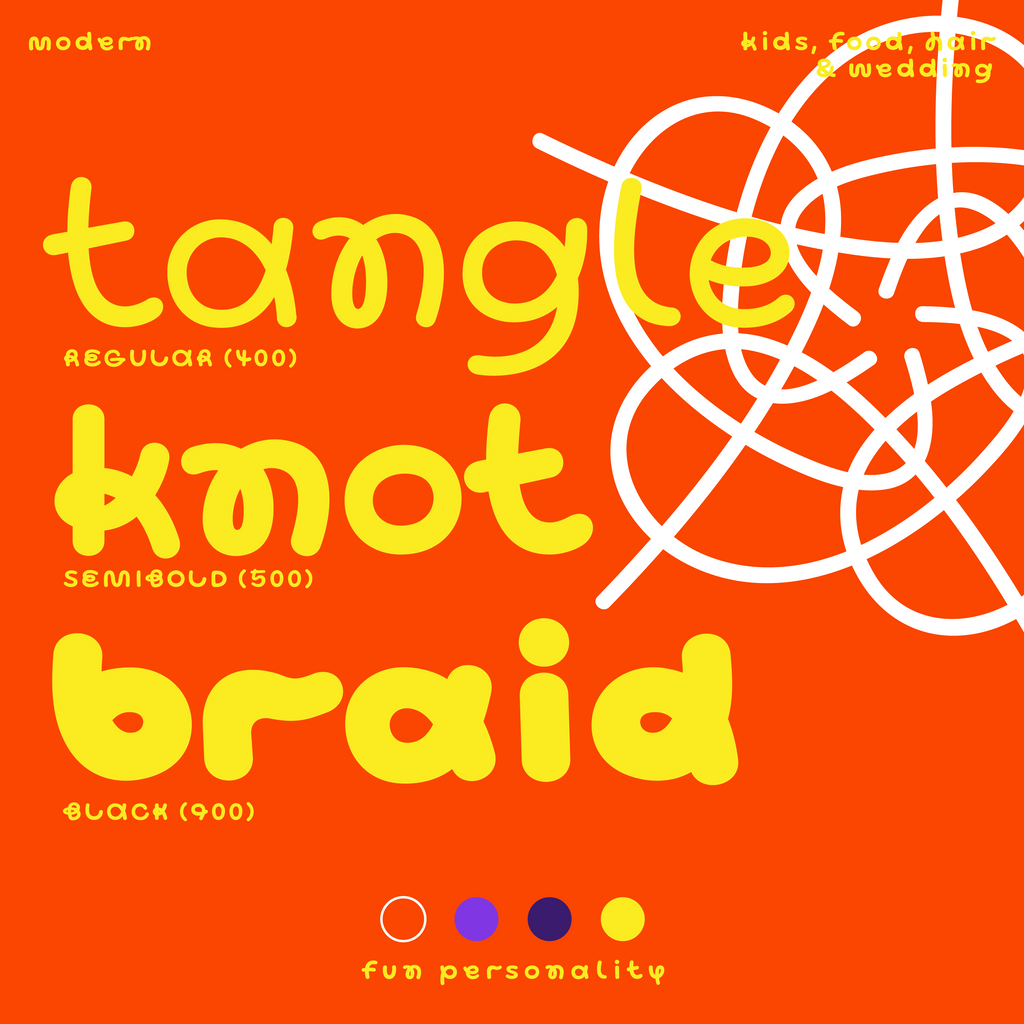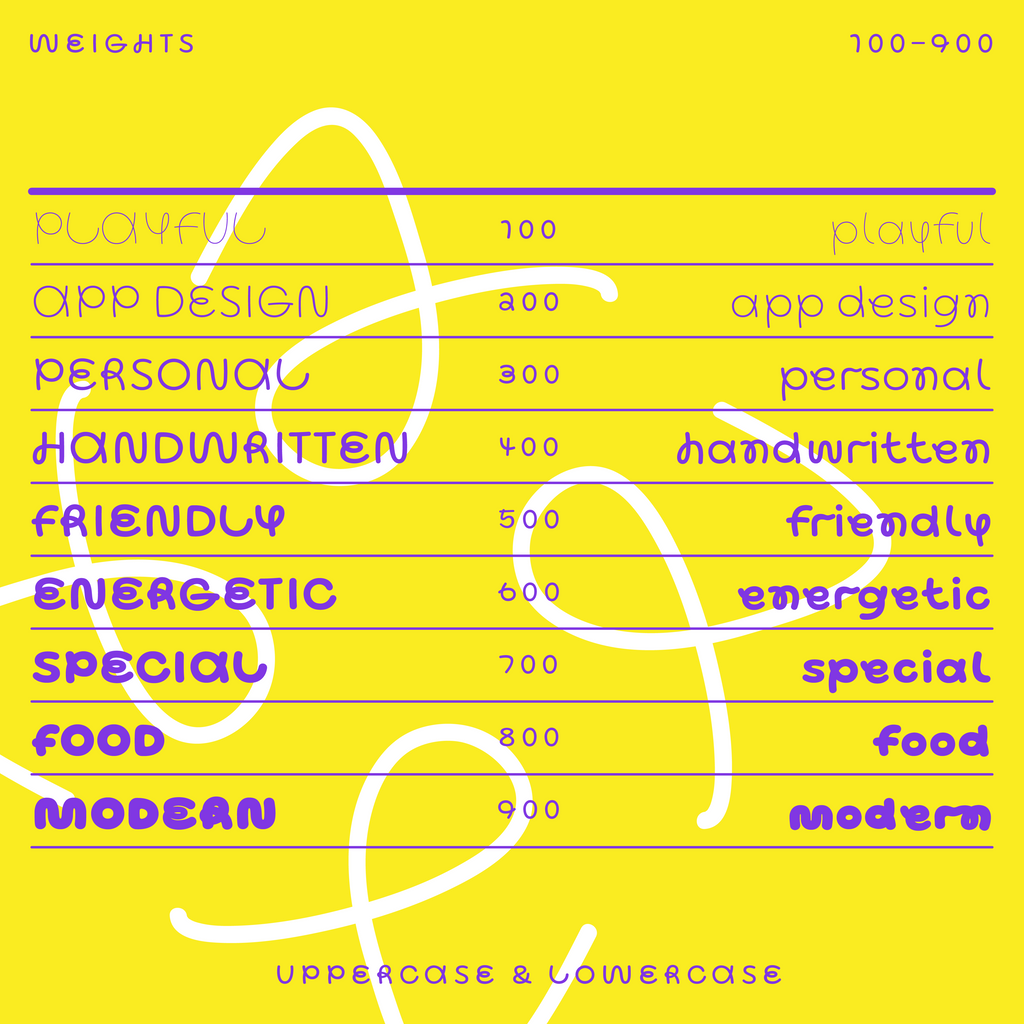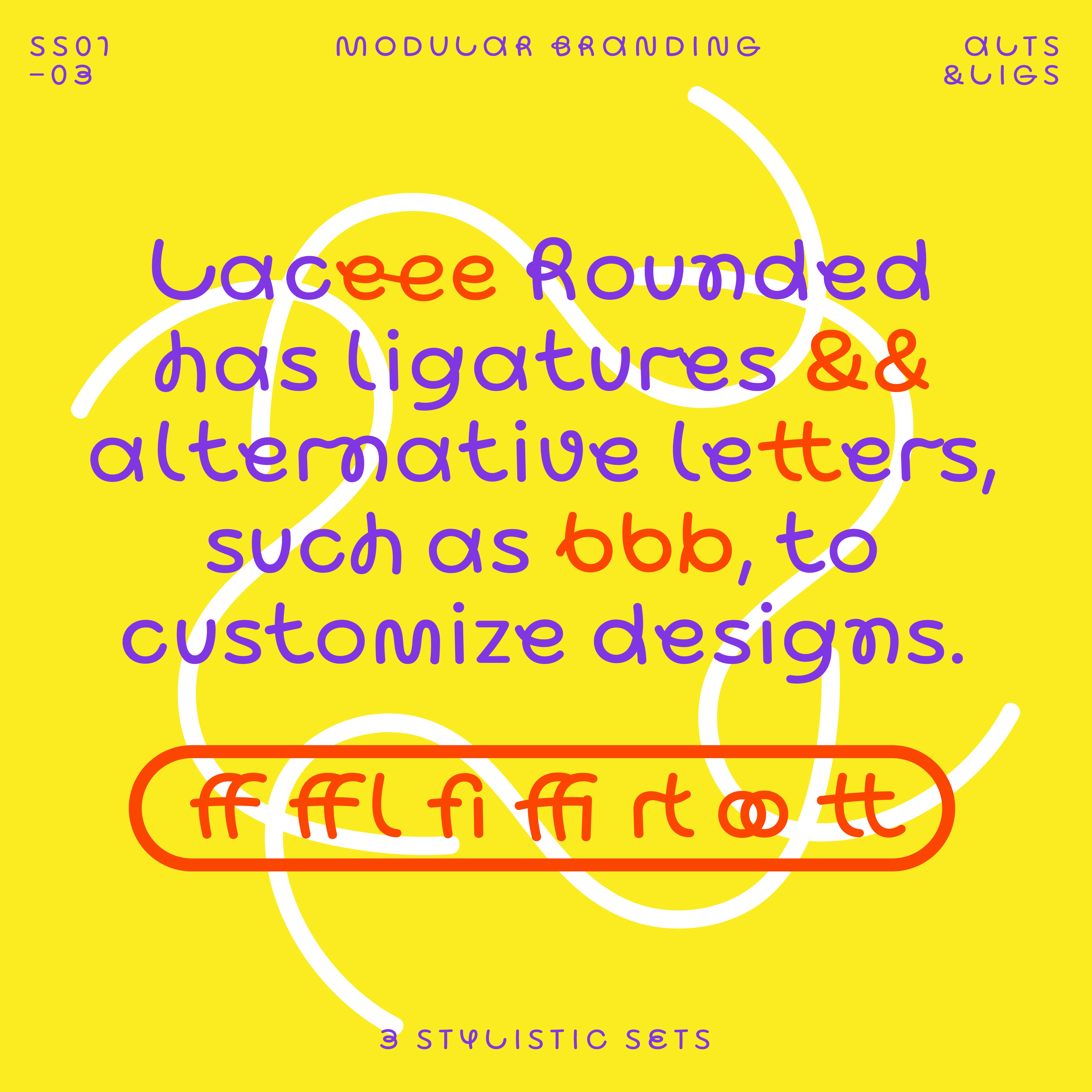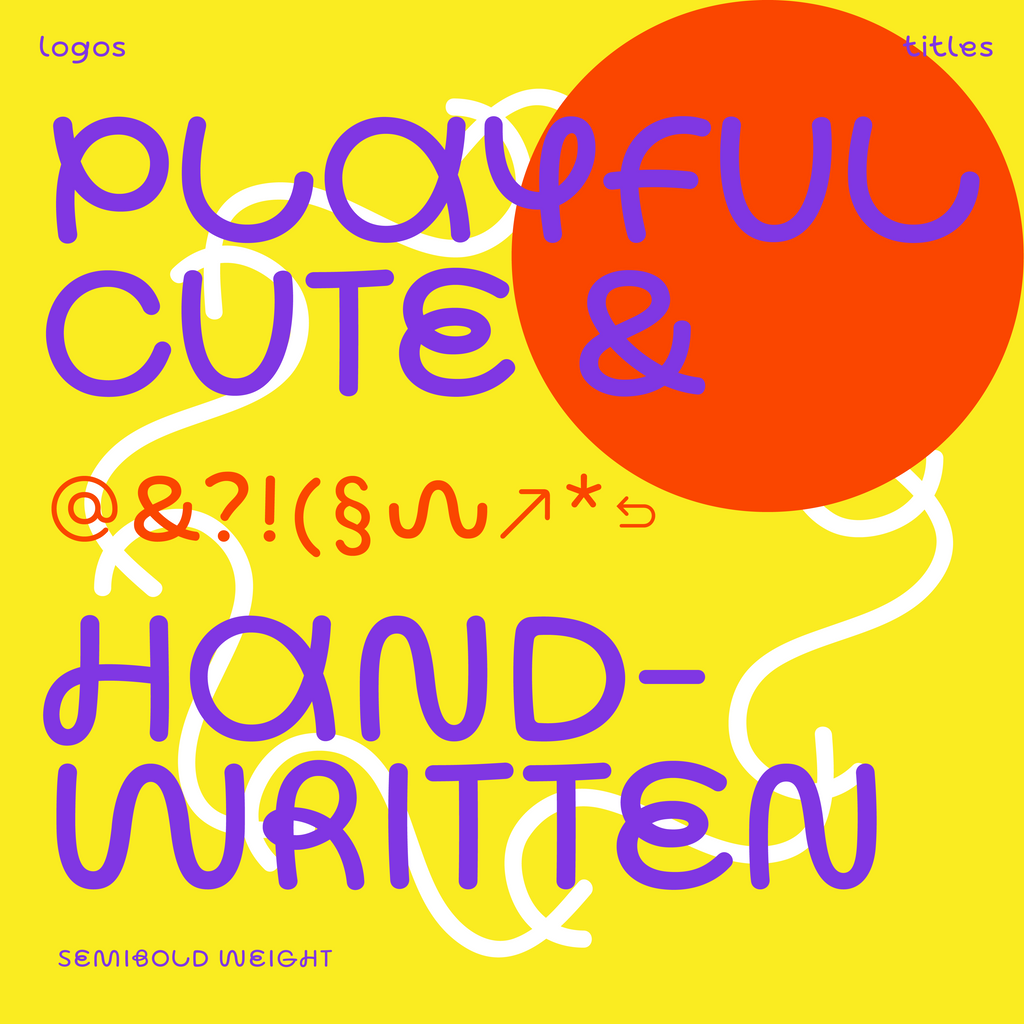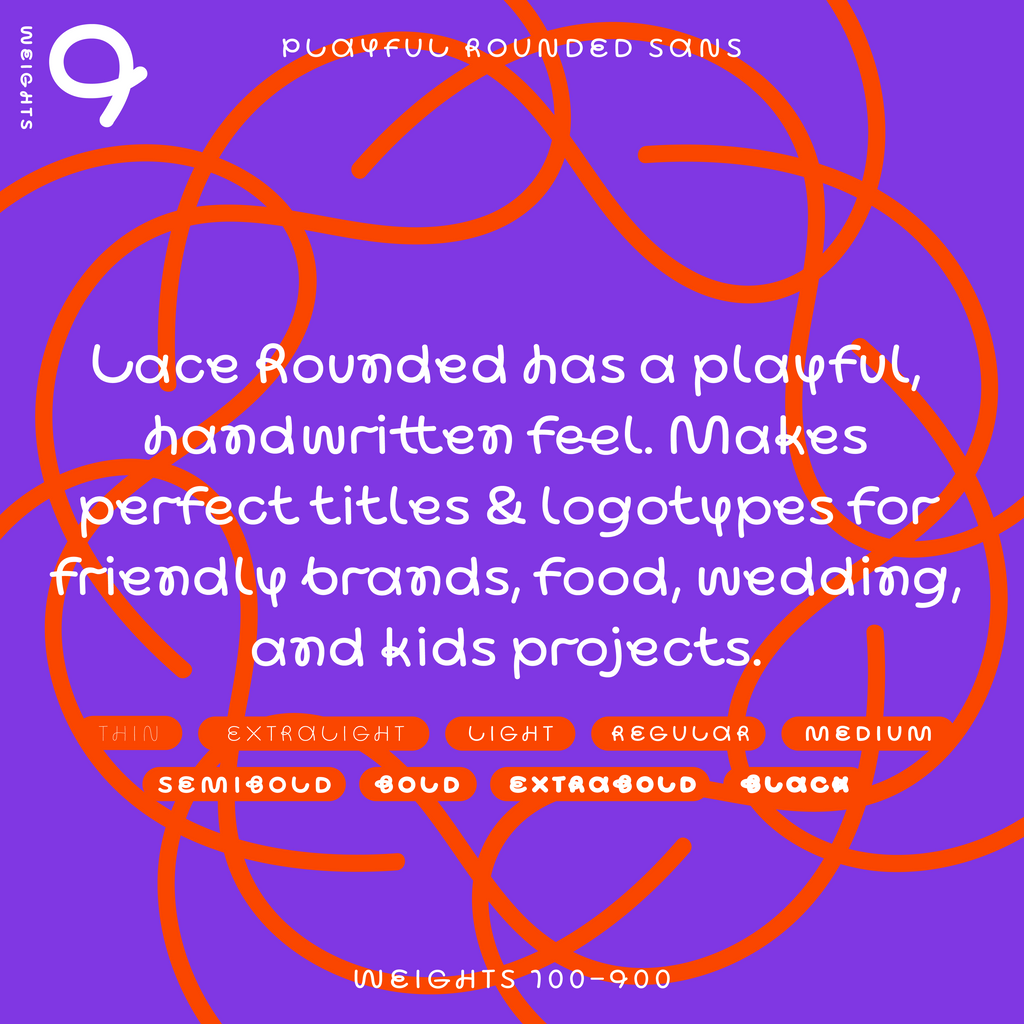
Lace Rounded—Noodle font (rounded, handwritten line style)
Lace Rounded is a cute noodle font, part of the bubble font category, and best used for fun branding and design projects. This friendly font is perfect for adding a touch of whimsy and lightheartedness. It features letters, numbers, and symbols in a colorful noodle one-line cursive handwriting.
Lace Rounded has a playful, handwritten feel. Makes perfect titles & logotypes for friendly brands, food, wedding, and kids projects. Available in 9 weights from Thin to Black (select “all 9 styles“ from dropdown).